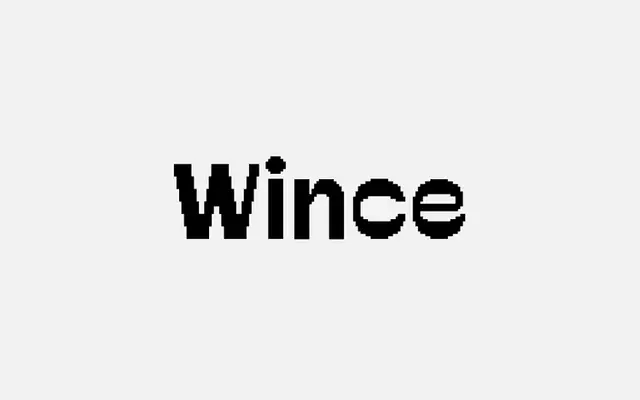
A bold bitmap display typeface that pairs a pixelated grid structure with playful width variation and unorthodox letterforms.
Built on a sharp bitmap structure, Wince softens its retro pixel aesthetic with varying character widths and an irreverent approach to letterform design. It sits in the display space where digital nostalgia meets deliberate eccentricity, suited to titles, posters and screen-native contexts. Available as a single OTF file.
Wince is built on a sharp bitmap grid with pixelated letterforms, placing it firmly in the display category as a pixel or bitmap typeface. Its varying widths and playful contrast give it an unorthodox, decorative character beyond functional text use.